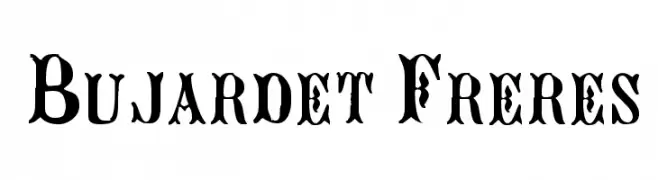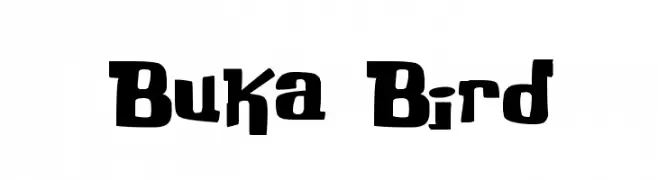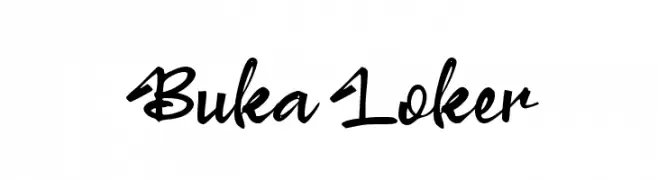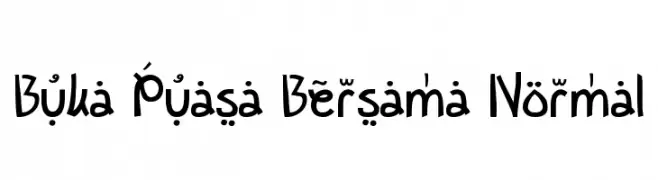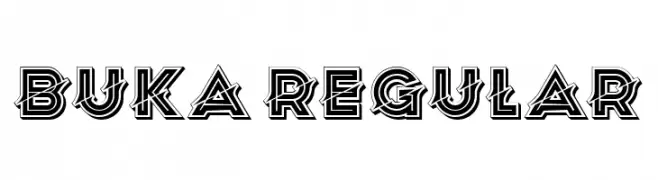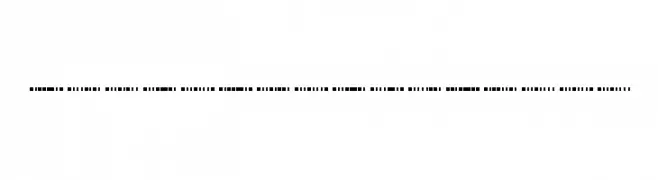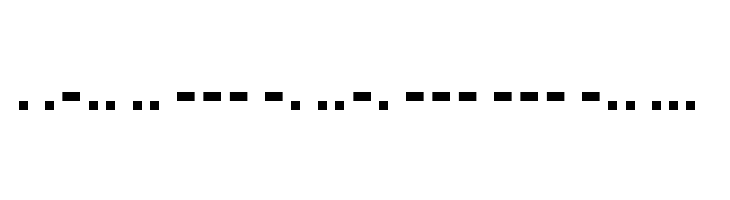
A bold, decorative font with a vintage and ornate style.
A playful, bold, hand-drawn font with a friendly and whimsical style.
A bold, playful font with a whimsical, hand-drawn style.
A lively, handwritten script font with a modern and expressive style.
A whimsical and playful font with bold, curved letterforms and decorative elements.
A bold, geometric font with a three-dimensional effect and angular design.
A modern, monospaced font with a digital dot pattern.
A decorative font using binary-like patterns for a digital aesthetic.